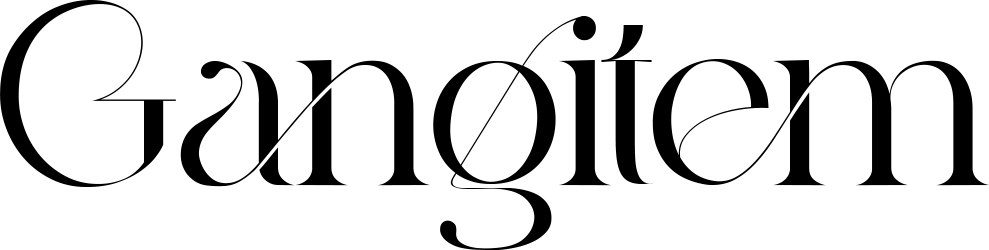
Gangitem Font
Today’s post will introduce a unique ligature serif font that is perfect for fancy and expensive things! This Gangitem font has a thin and elegant look with a continuous which will give a prestigious sense to the reader. You can use it for movie names, fashion blogs and magazines, and decorative headlines.